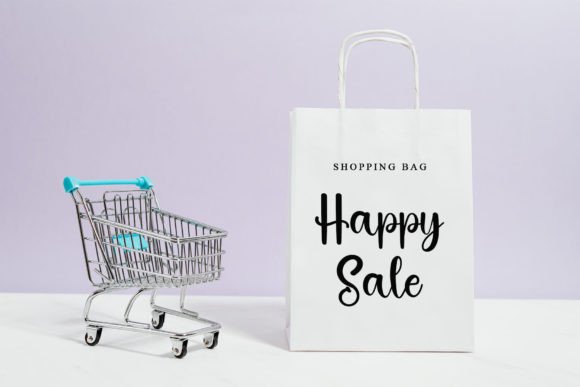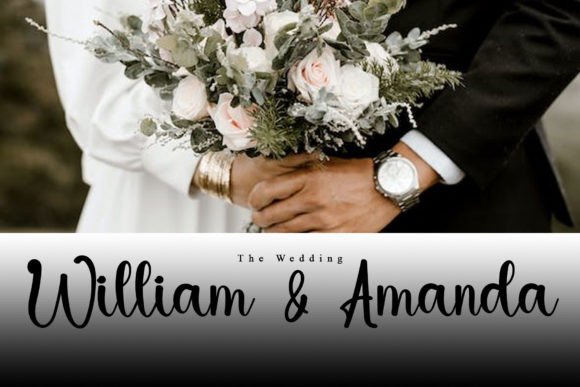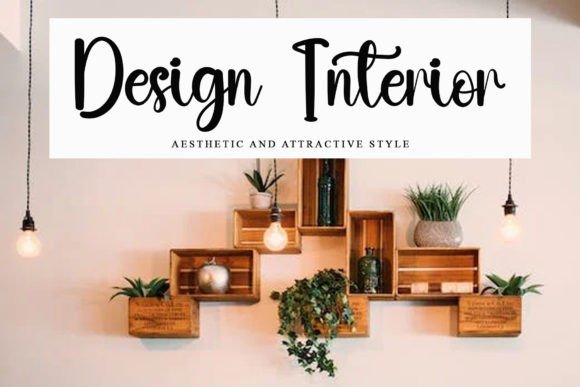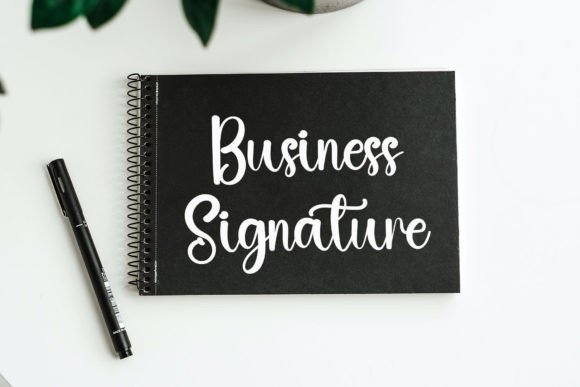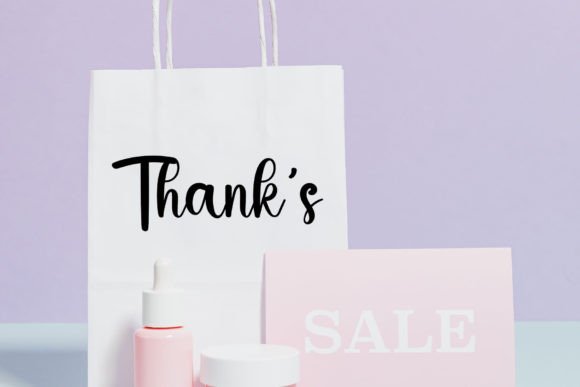
Unlocking the Magic of Beautiful Designs with Beautiful Princess Font
Have you ever stumbled upon a font that makes your design come alive? A moment of pure creative bliss, where the perfect combination of style and functionality transports you to a world of endless possibilities. For designers, this feeling is a treasure to behold, and one font that embodies this magic is the Beautiful Princess Font.
This elegant font is more than just a pretty face – it’s a versatile tool designed to bring out the best in your artistic endeavors. With its unique characters and natural style, Beautiful Princess Font is perfect for a wide range of applications, from design needs to handicrafts and beyond. Whether you’re working on a Windows or open-source project, this font is sure to make your work stand out and captivate your audience.
Beautiful Princess Font Key Features
- Font Family: Beautiful Princess is a script font family, designed to evoke a sense of elegance and sophistication.
- Unique Characteristics: Features intricate, hand-drawn designs, swashes, and flourishes, making it ideal for wedding invitations, greeting cards, and other special occasion designs.
- Font Pairing: Beautiful Princess pairs well with sans-serif fonts like Open Sans or Lato, creating a balanced and harmonious visual effect.
Designer Review: Beautiful Princess Font
The Beautiful Princess Font is a font that promises to transport you to a fairytale world. And, I must say, it mostly delivers ✨. The font’s elegant, cursive script is perfect for titles, headings, or any text that needs a touch of whimsy.
- The font’s unique, flowing lines add a sense of sophistication and luxury to any design.
- The Beautiful Princess Font is highly customizable, with a range of sizes and styles to choose from.
- The font is also highly legible, making it perfect for long blocks of text.
However, there are a few limitations to consider ⚠️. The font may not be the best choice for body text, as it can be quite ornate and overwhelming. Additionally, the font’s bold and italic styles may not be as well-suited for digital displays.
Overall, I would say that the Beautiful Princess Font is a great choice for designers who want to add a touch of elegance and sophistication to their designs. Just be mindful of its limitations and use it judiciously ✨.
Getting the Most Out of the Beautiful Princess Font
To get the most out of the Beautiful Princess Font, use it for:
- Magazine and brochure designs
Remember to pair the Beautiful Princess Font with other elegant and whimsical fonts to create a unique and eye-catching design.
The Beautiful Princess Font is commonly used for:
- Formal and whimsical designs
- Children’s and young adult content
- Wedding and party invitations
It’s perfect for designers who want to add a touch of
Alternatives to “Beautiful Princess Font” for Designers
Lobster is a fun, cursive script font that is perfect for creating a whimsical or playful atmosphere. It is ideal for use in titles, headings, and other design elements where a touch of elegance is desired. Lobster is similar to Beautiful Princess Font in its elegant and feminine feel, but it has a more relaxed, casual vibe.
Great Vibes is a modern, elegant script font that is suitable for a wide range of design applications, from wedding invitations to branding materials. It is similar to Beautiful Princess Font in its sophistication and refinement, but it has a more subtle, understated feel. Great Vibes is ideal for use in designs where a touch of luxury and sophistication is desired.